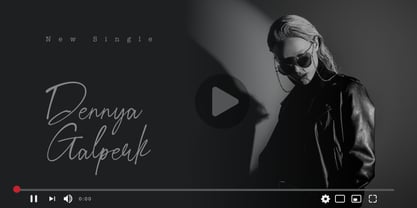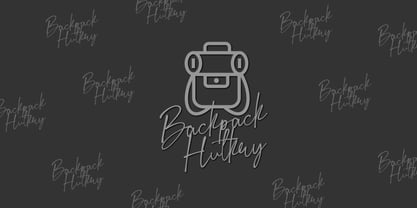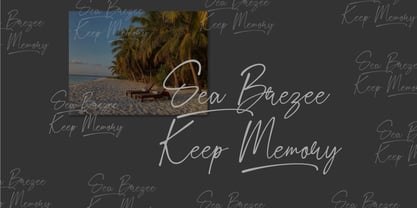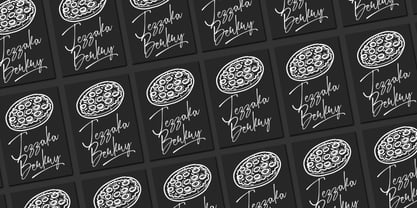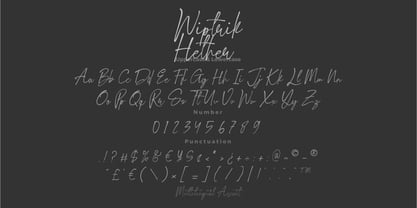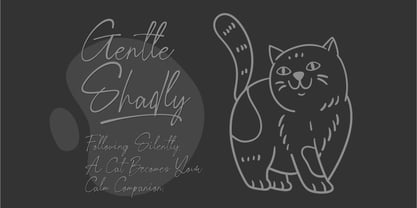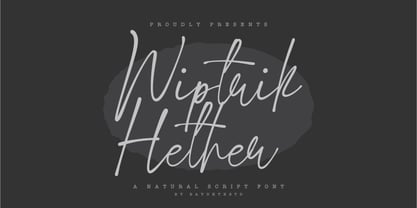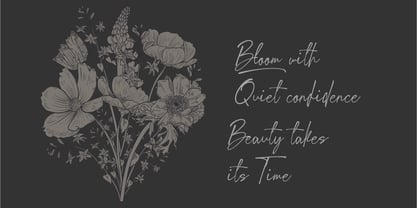
Wiptrik Hether
Wiptrik Hether – Natural Script Font
Wiptrik Hether a Natural Script Font is an elegant and flowing typeface inspired by authentic handwriting, modern calligraphy, and smooth signature strokes. Featuring thin lines, graceful curves, and natural movement, this font delivers a refined and sophisticated visual presence.
Designed to reflect the beauty of real pen motion, Wiptrik Hether combines fluid letter connections with a clean and stylish aesthetic. Each character is crafted with delicate balance and organic rhythm, creating a seamless handwritten flow that feels both personal and professional.
With its timeless and versatile style, Wiptrik Hether is perfect for designs that aim to express elegance, creativity, and authenticity. It brings a soft yet luxurious feel that works beautifully across modern and high-end design projects.
* Uppercase & Lowercase Characters
* Numerals & Punctuation
* Natural Script Style
* Smooth & Flowing Letterforms
* Elegant & Signature Look
With Wiptrik Hether a Natural Script Font, your designs will achieve a graceful, elegant, and professional look—perfect for projects that demand a refined and luxurious handwritten touch.